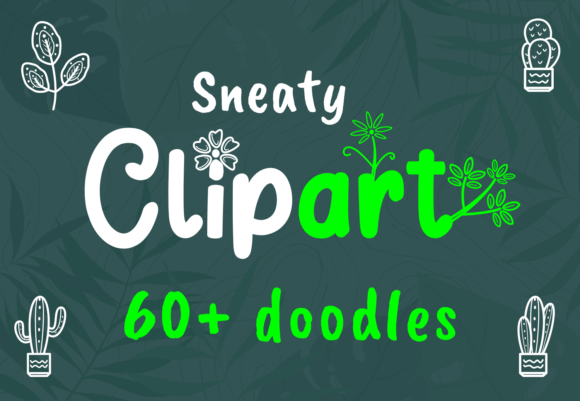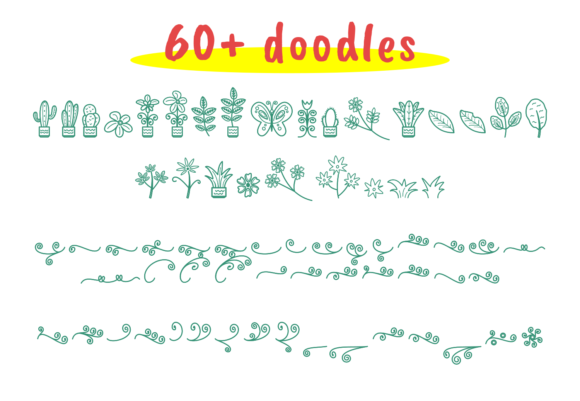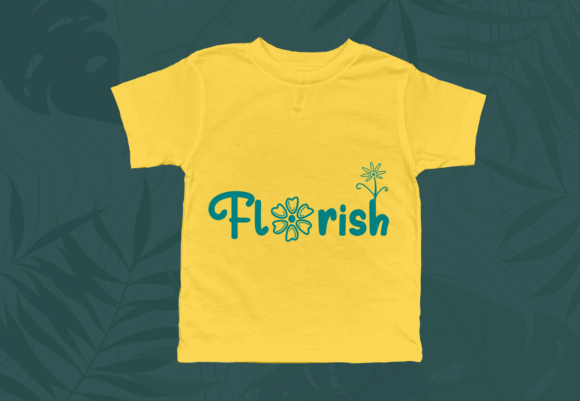
Sneaty Clipart Font
About Sneaty Clipart Font
“Sneaty Clipart” is an incredibly useful and unique dingbats font that offers a collection of plant-themed icons, including plants, cacti, leaves, flowers, and grass. With this font, you can easily enhance your creative ideas and add a touch of nature and freshness to your designs.
The diverse range of plant icons in “Sneaty Clipart” provides you with a wide variety of options to choose from. Whether you’re working on gardening-related projects, nature-themed designs, or simply want to incorporate some greenery into your artwork, this font has got you covered.
The plant icons in “Sneaty Clipart” can be used in various ways to embellish your creative ideas. Here are a few examples:
1. Stationery and Invitations: Add floral accents or leafy borders to your stationery, invitations, or greeting cards. These plant icons can give your designs a natural and charming touch.
2. Branding and Logo Design: Incorporate plant elements into your logo or branding materials to create a fresh and eco-friendly identity. The versatility of the plant icons allows you to convey different brand values and aesthetics.
3. Social Media Graphics: Spruce up your social media posts by adding plant icons as decorative elements. Create eye-catching graphics for gardening tips, plant care advice, or nature-inspired content.
4. Web Design: Use the plant icons as decorative elements on websites or blogs with a nature or environmental focus. They can be incorporated into headers, banners, or navigation menus to create a cohesive visual theme.
5. Educational Materials: If you’re working on educational materials related to botany or ecology, “Sneaty Clipart” can be a valuable asset. Use the plant icons to illustrate concepts, create flashcards, or enhance worksheets.
When using “Sneaty Clipart,” feel free to experiment with colors, sizes, and combinations to create visually appealing designs. Consider the overall composition and balance of your layout to ensure that the plant icons are integrated harmoniously.
In summary, “Sneaty Clipart” is an incredibly useful and unique dingbats font that allows you to embellish your creative ideas with a delightful collection of plant-themed icons. From adding a touch of nature to your designs to creating fresh and eco-friendly visuals, this font offers endless possibilities for enhancing your projects.